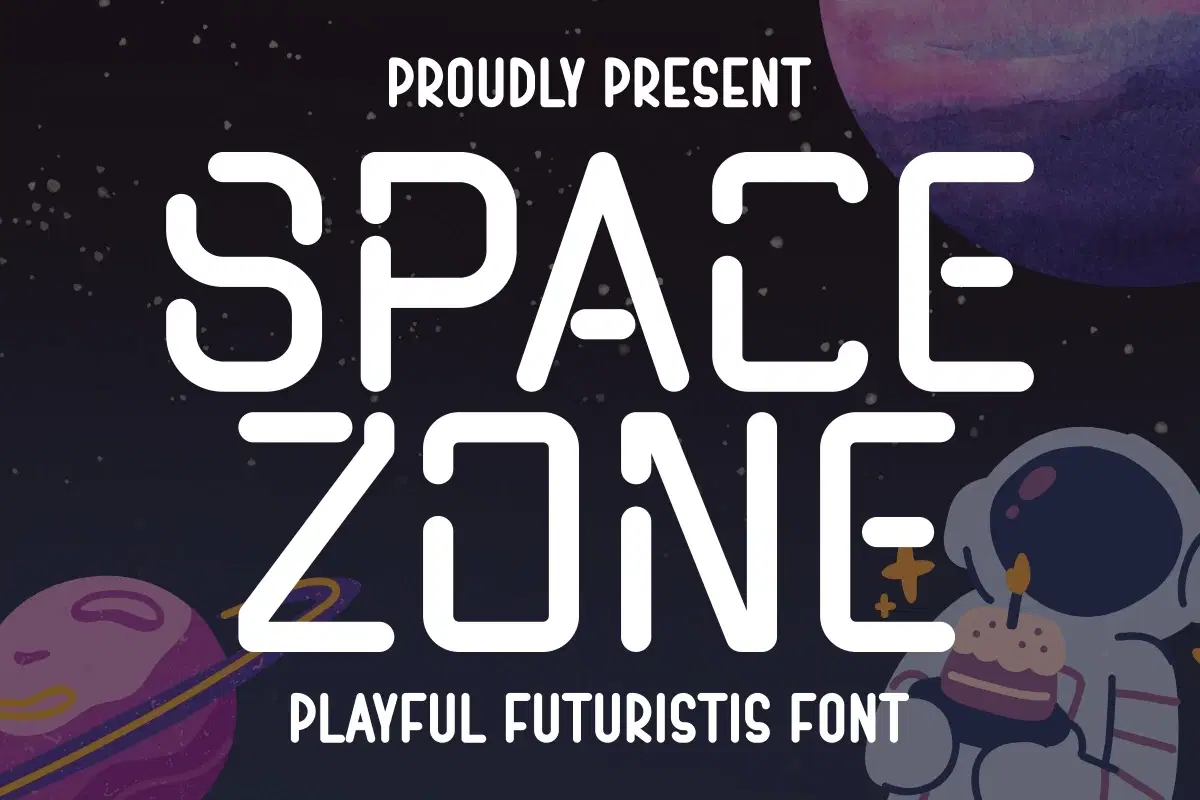
Space Zone - Playful Futuristic Font
Space Zone is a playful futuristic font that blends clean sci-fi shapes with a fun, friendly personality. Its rounded corners, geometric curves, and unique tech-inspired cuts create a modern yet approachable style—perfect for children’s space themes, cartoon illustrations, technology branding, gaming designs, and eye-catching titles.
This font captures the feeling of adventure, imagination, and outer-space excitement, making it ideal for posters, logos, product packaging, YouTube thumbnails, and creative digital projects. With its balance of futuristic style and playful charm, Space Zone brings your designs to life in a fun cosmic atmosphere.